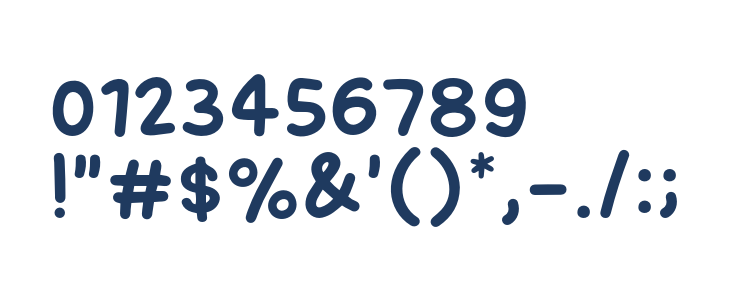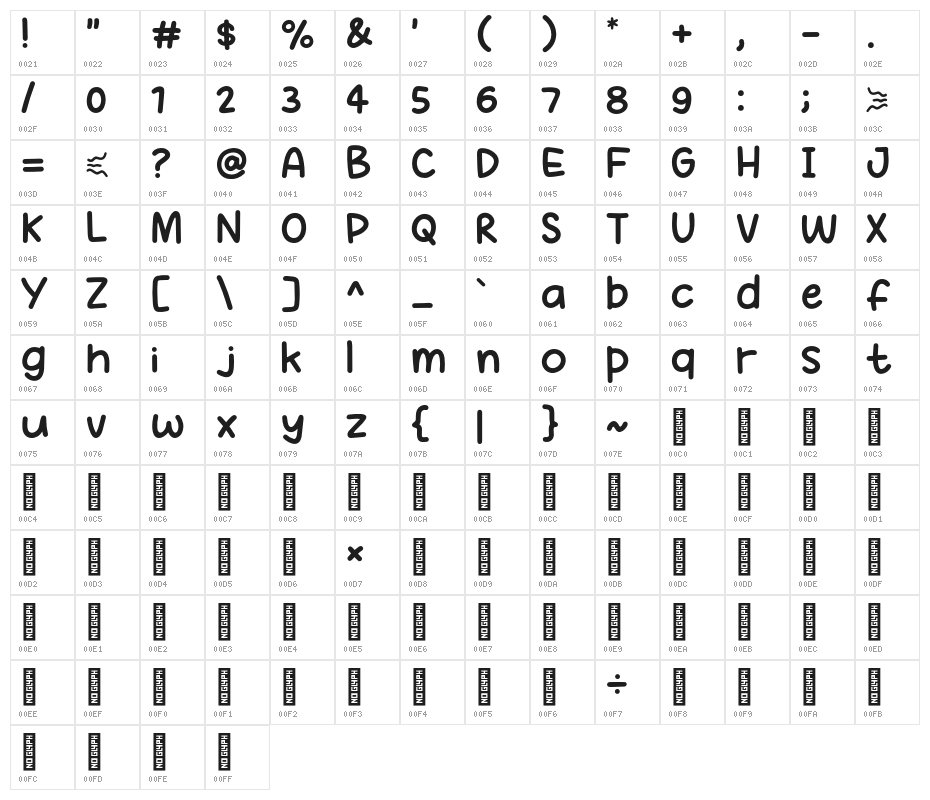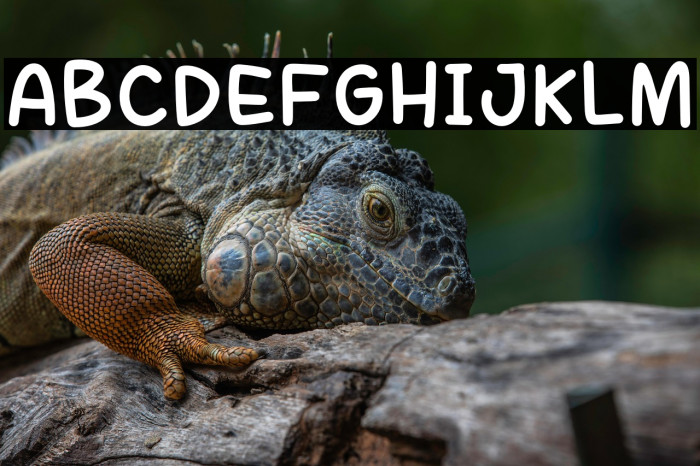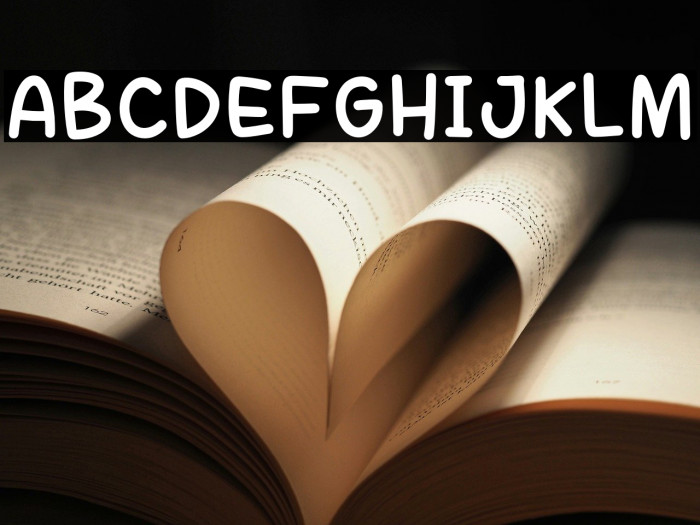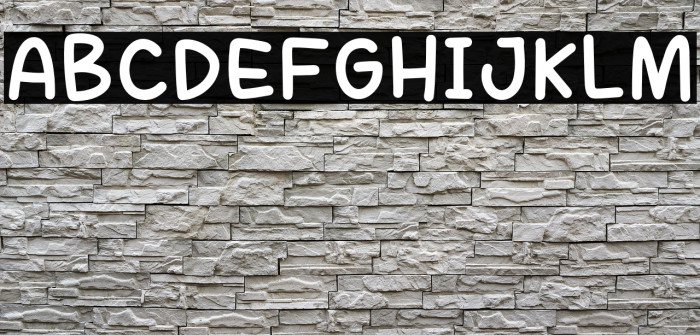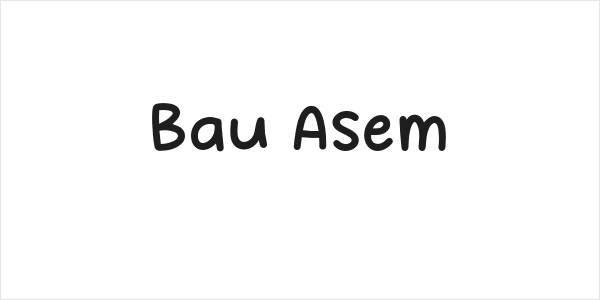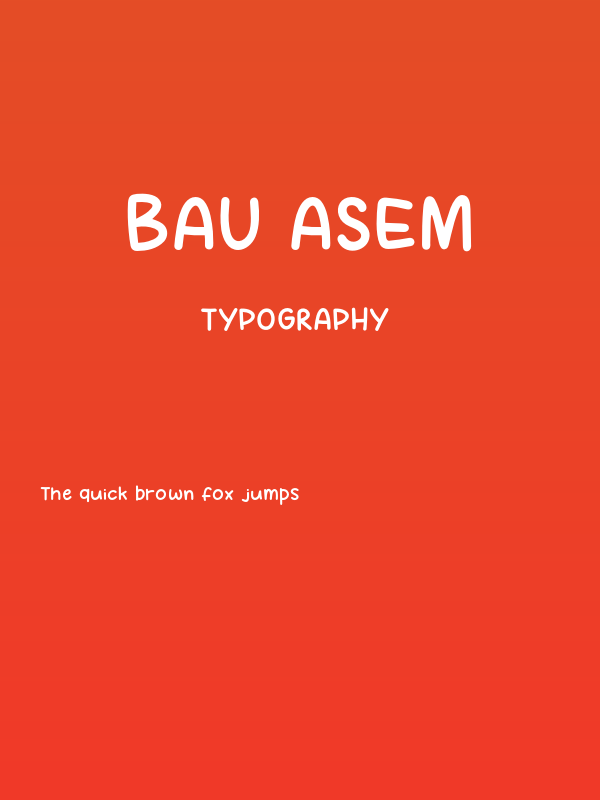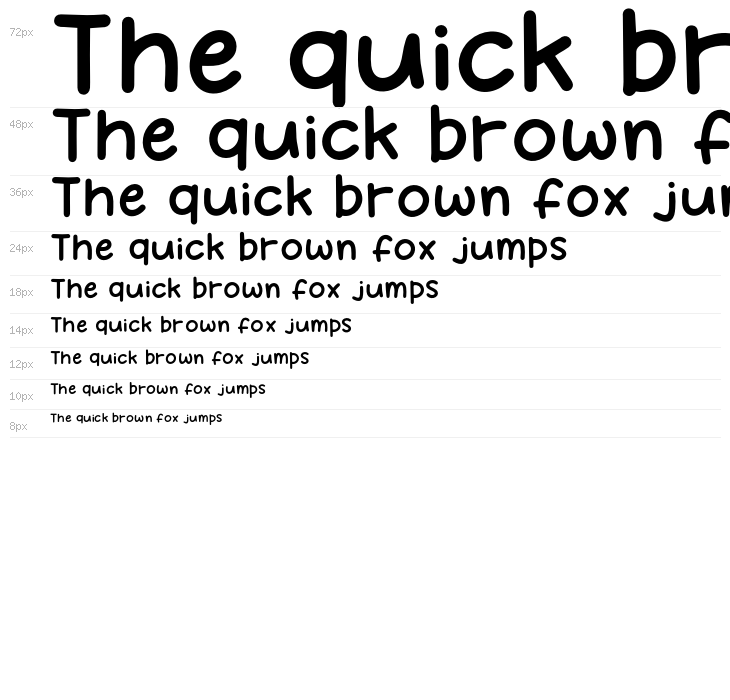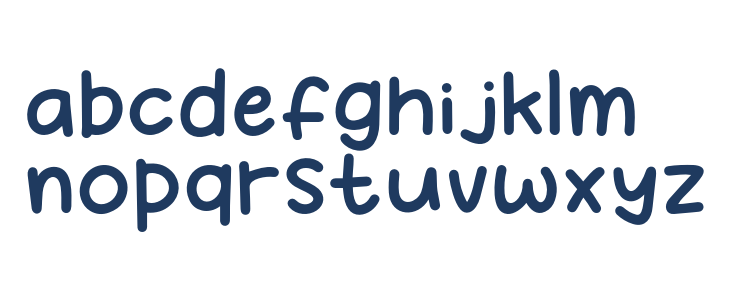
Bau Asem Font
Bau Asem Description
This playful and rounded font features a casual, handwritten style with a friendly and approachable appearance. The characters are bold and slightly irregular, giving them a whimsical and informal feel. The strokes are consistent in thickness, contributing to a cohesive look across all characters. The uppercase and lowercase letters maintain a uniform height, while the numerals and special characters blend seamlessly with the alphabet. This font's charm lies in its simplicity and the subtle quirks of each letterform, making it ideal for projects that require a touch of personality and warmth.
| Proposed Projects | Ideal for children's books, greeting cards, playful branding, and informal invitations. |